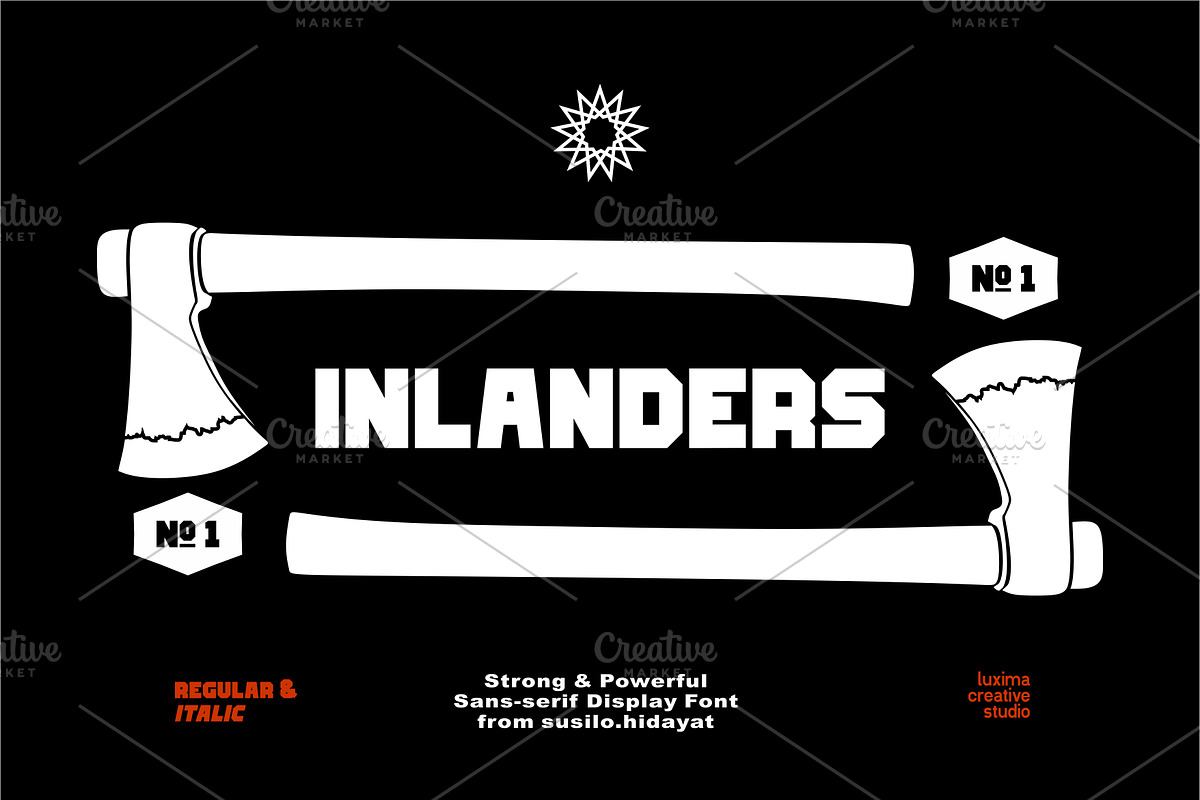
INLANDERS – Heavy Block Font Free Download is a powerful and commanding display typeface built for maximum impact. Perfect for headlines, posters, sports branding, urban apparel, and attention-grabbing logos, this font delivers strength, structure, and bold visual presence.
With thick strokes, sharp angles, and a solid, no-nonsense aesthetic, INLANDERS – Heavy Block Font Free Download demands attention and communicates confidence. Whether you're designing for an athletic brand, a streetwear label, or a bold campaign, INLANDERS ensures your message won’t be ignored. Try it in your next mockup to feel the impact—then upgrade to a commercial license when you're ready to make your statement loud and clear.